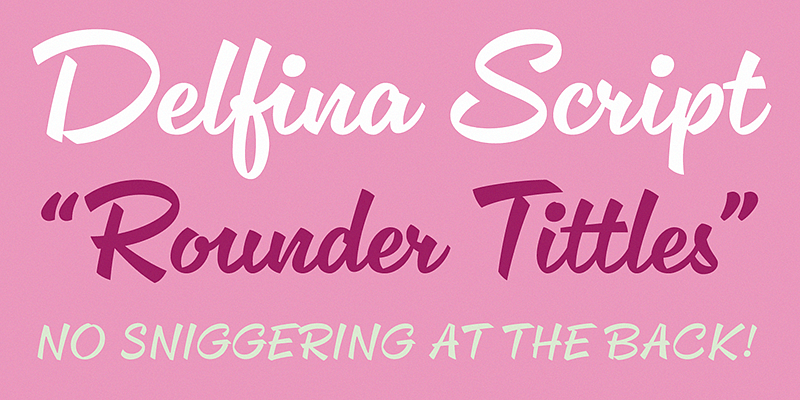
Delfina Script Font Free Download
Delfina Script Font Free Download is a luxurious and flowing script typeface that exudes elegance, romance, and sophistication. Designed with delicate curves and fluid strokes, Delfina is perfect for wedding invitations, branding, high-end packaging, social media graphics, and any project that calls for a graceful handwritten touch.
Its beautifully crafted letterforms mimic the elegance of calligraphy, while remaining highly legible and well-balanced. Each character in Delfina Script Font Free Download flows seamlessly into the next, making it an ideal choice for cursive headlines, signatures, and stylish logotypes.
What sets Delfina apart is its blend of classic beauty with modern precision. It offers a rich set of alternates and ligatures that allow for personalized, authentic-looking compositions, whether you're designing romantic stationery or a luxurious brand identity.
Delfina Script is more than just a font—it’s a handwritten statement of style. Elegant, expressive, and endlessly refined, it’s your go-to typeface for designs that need a soft, sophisticated finish.